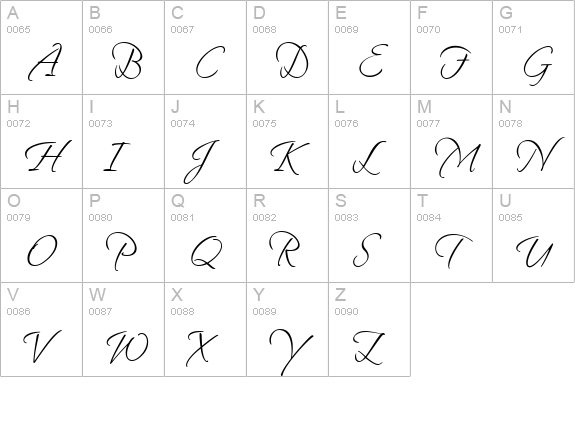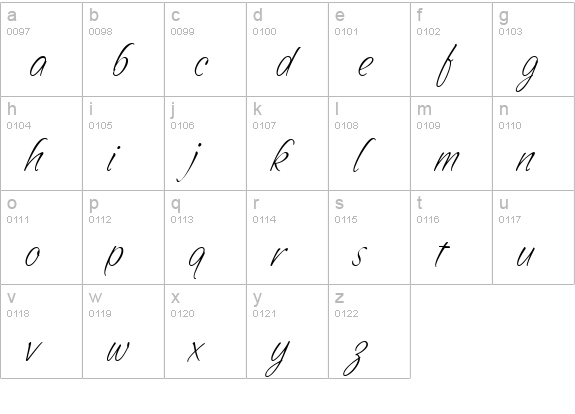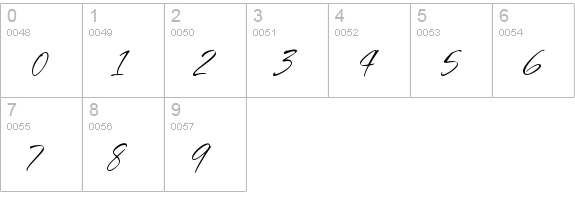
SandyTextHmk Font Details
Introducing SandyTextHmk, a stylish and contemporary font that will elevate your design projects to new heights. With its sleek lines and elegant curves, SandyTextHmk adds a touch of sophistication to any text-based design. Whether you are creating a logo, designing a website, or crafting a beautiful invitation, this font is sure to make a lasting impression. But what sets SandyTextHmk apart from other fonts? Well, not only does it boast a unique and eye-catching design, but it is also completely free to download. That's right, you heard correctly - SandyTextHmk can be yours without spending a dime. Thanks to FontsMarket.com, this incredible font is freely available for download, allowing you to bring your creative vision to life without breaking the bank. Imagine the possibilities with SandyTextHmk at your fingertips. Its versatility makes it suitable for a wide range of projects, from professional presentations to personal crafts. With its clean and modern aesthetic, this font is perfect for adding a touch of elegance to wedding invitations, creating eye-catching headlines for blog posts, or even designing a standout business card. But it's not just about looks - SandyTextHmk also offers exceptional legibility, ensuring that your message comes across loud and clear. Whether printed or displayed digitally, this font's crisp and clear letterforms make for effortless reading, captivating your audience with its captivating charm. So why wait? Transform your designs with SandyTextHmk today. Download this exceptional font for free at FontsMarket.com and unlock a world of creative possibilities. With SandyTextHmk, you can effortlessly elevate your projects and leave a lasting impression, all while staying within your budget. Don't miss out on this opportunity to add a touch of elegance to your designs - download SandyTextHmk now and unleash your creativity.